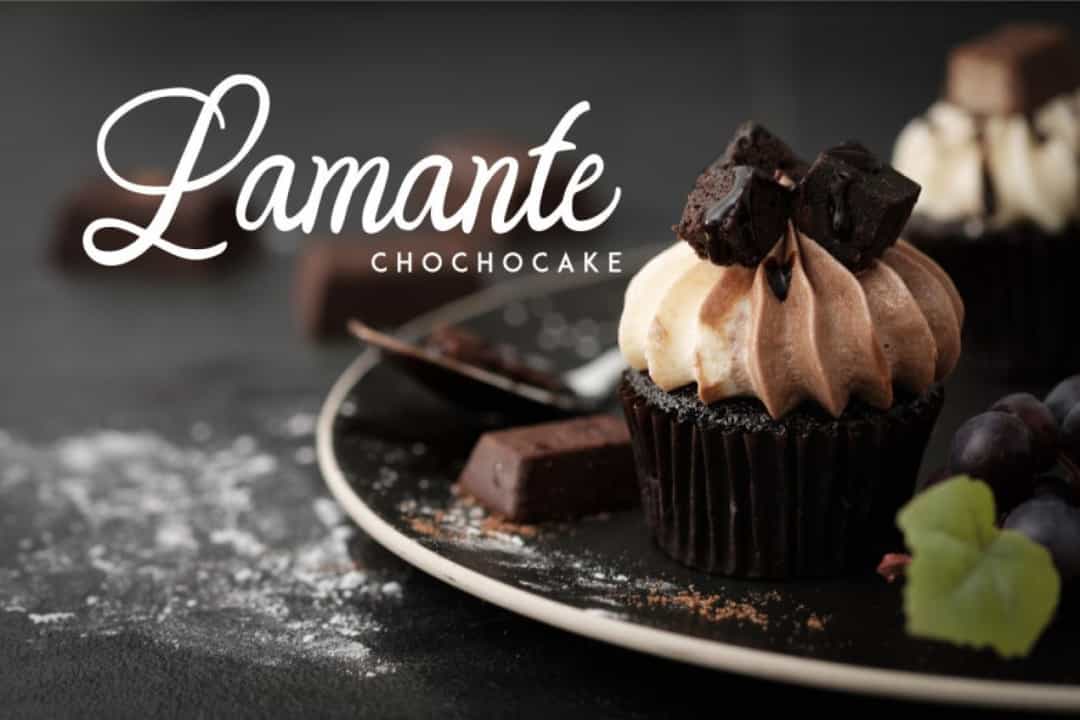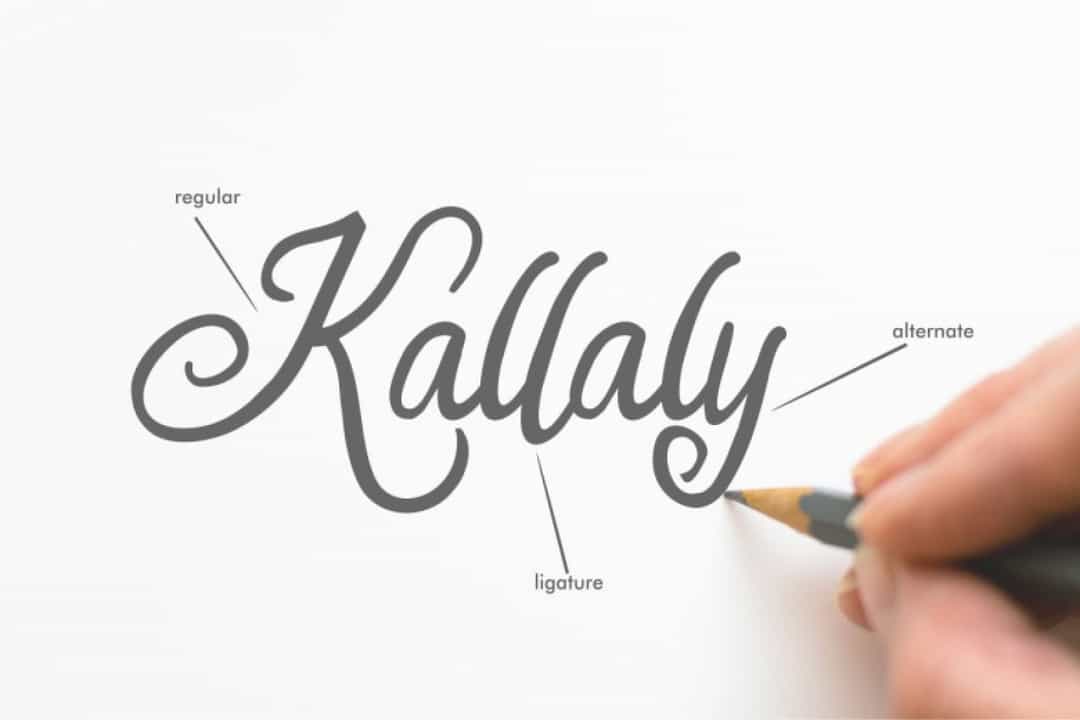
Orlandia Font is an instant way to enhance any design project, providing modern yet sophisticated accents in its script form. Orlandia offers Open Type features with stylistic alternatives and ligatures to give the font its natural look; perfect for wedding invitations, branding or invitations or even wine labels!